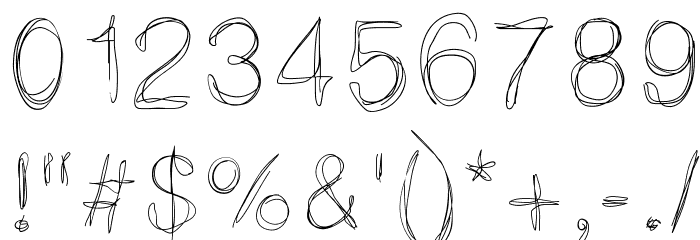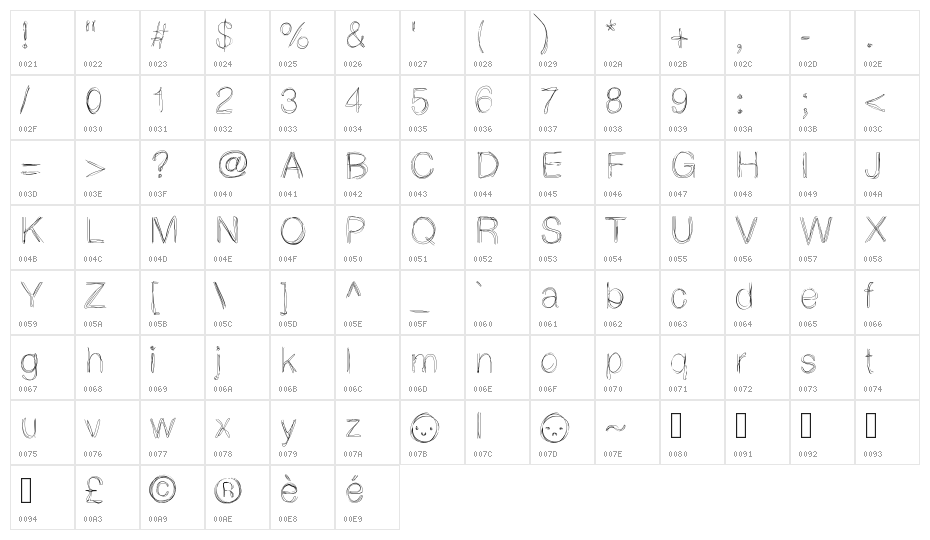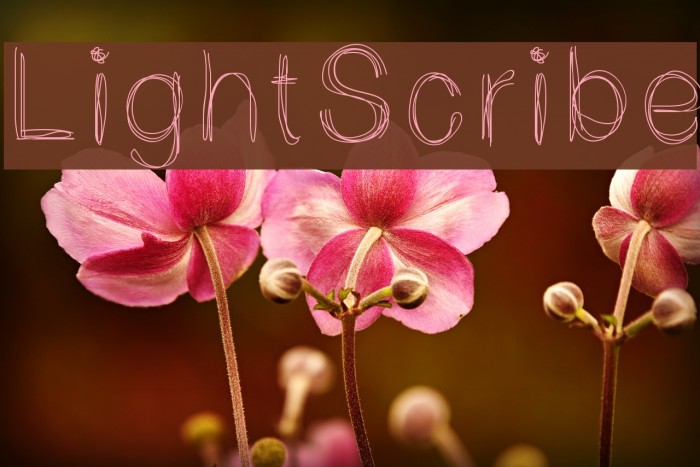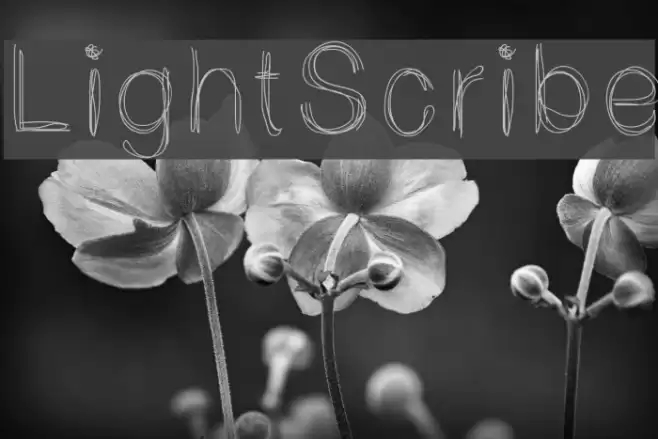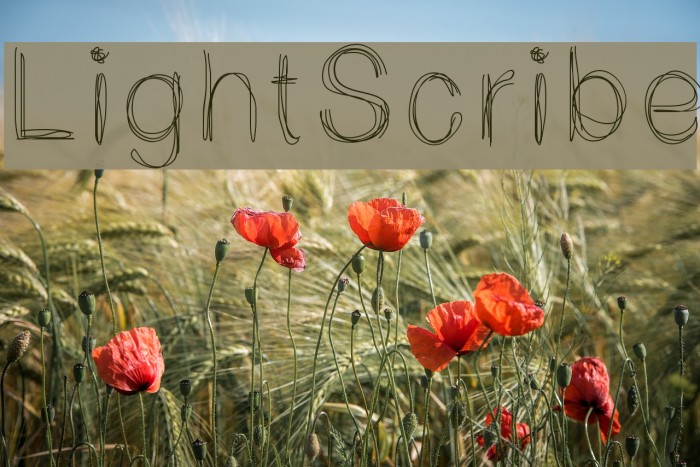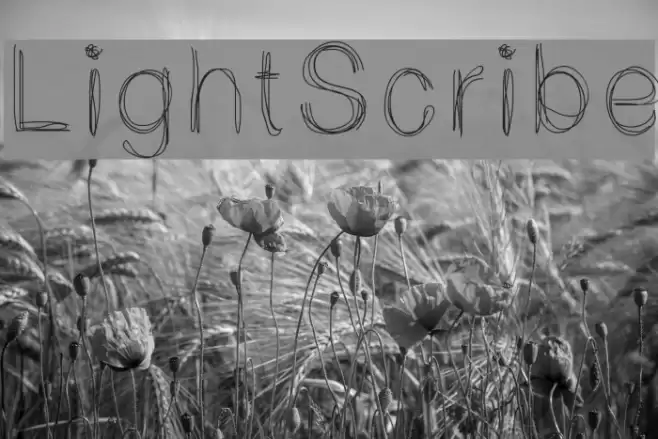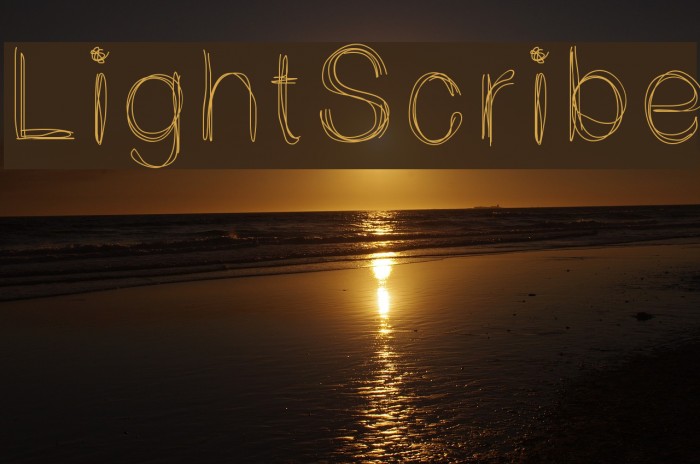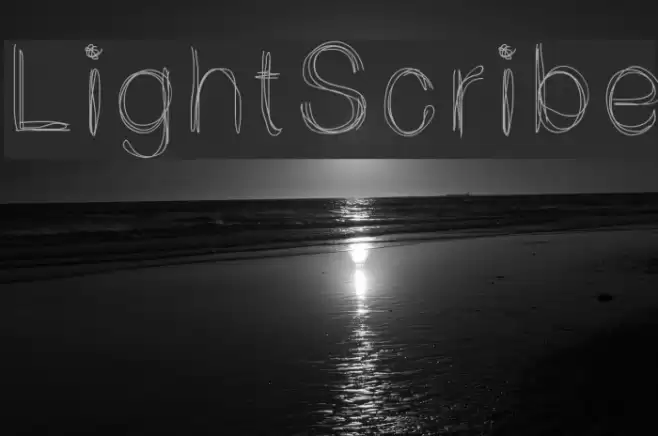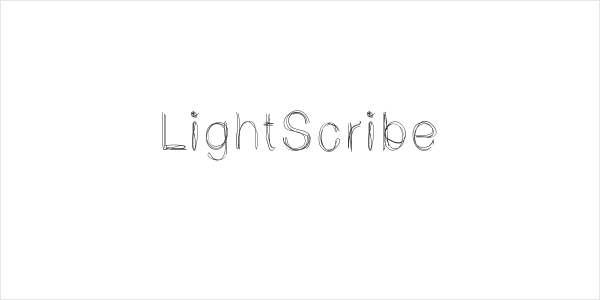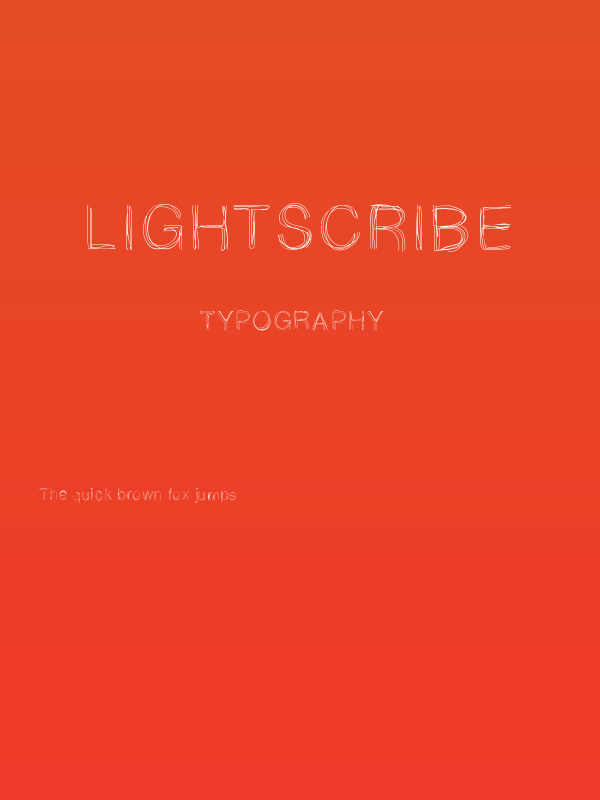
LightScribe Font
LightScribe Description
This font features a unique, hand-drawn style that gives it a playful and artistic appearance. Each character is composed of multiple overlapping lines, creating a sketch-like effect that adds depth and texture. The uppercase and lowercase letters maintain a consistent style, with rounded edges and a casual, informal feel. The numbers and special characters follow the same design principles, ensuring a cohesive look across all glyphs. This font's distinctive style makes it stand out, perfect for projects that require a creative and personal touch.
| Use Case | Logos, Posters, Creative projects |
| Proposed Projects | Ideal for creative projects such as children's books, art posters, greeting cards, and branding that seeks a personal touch. |